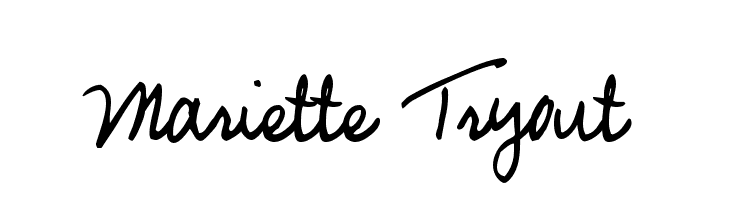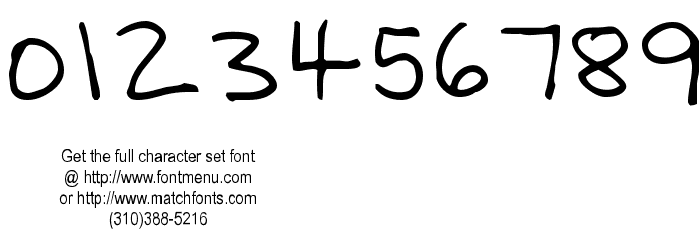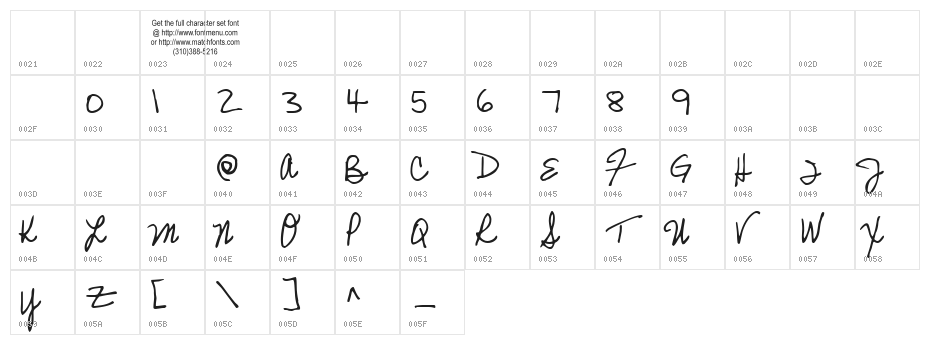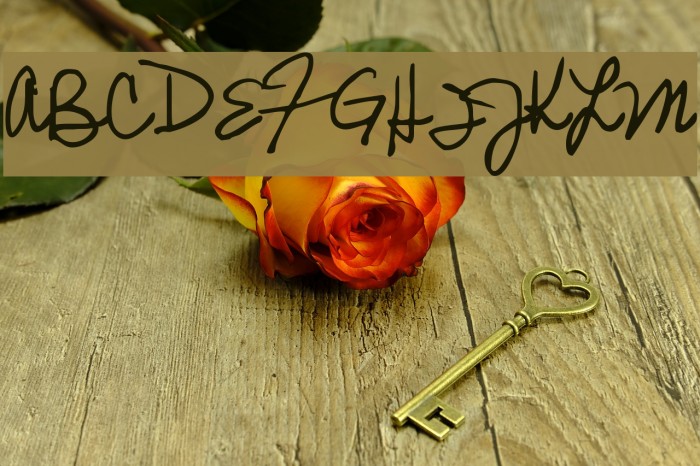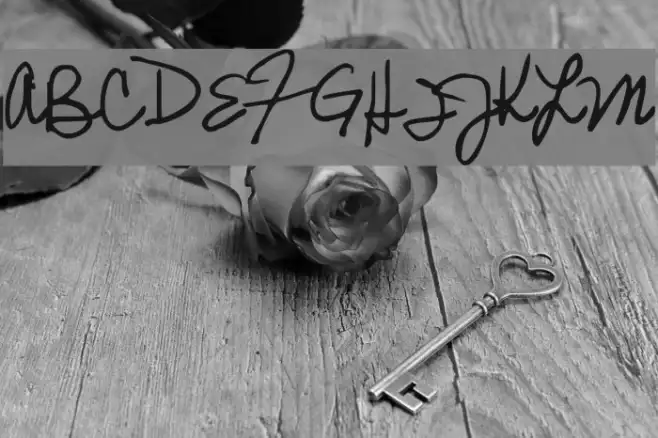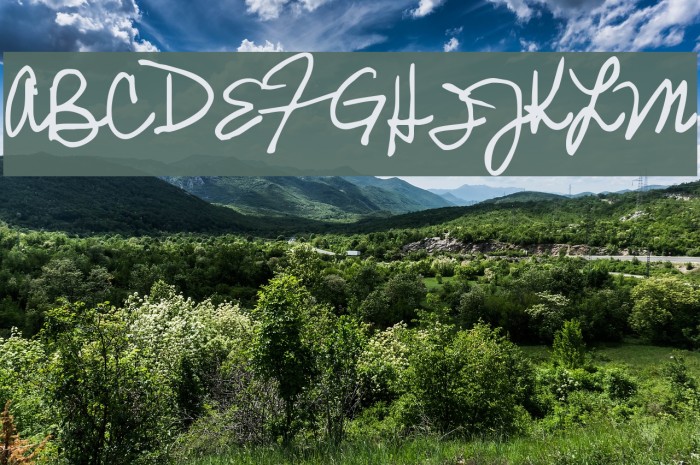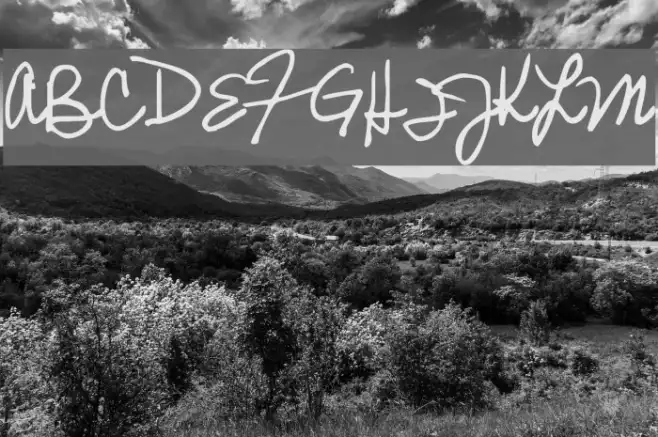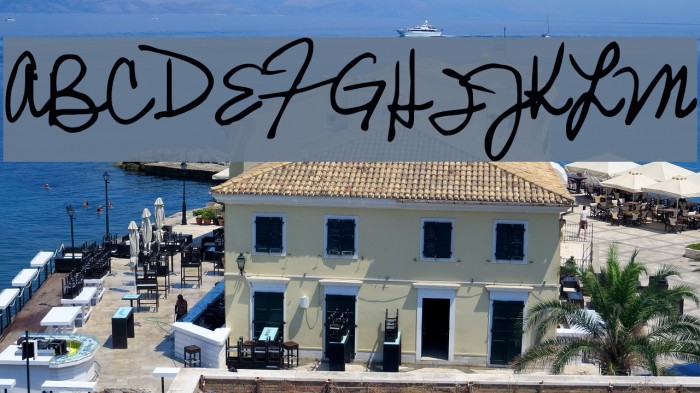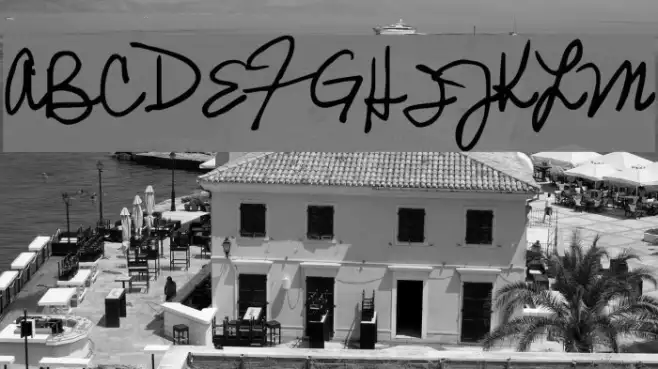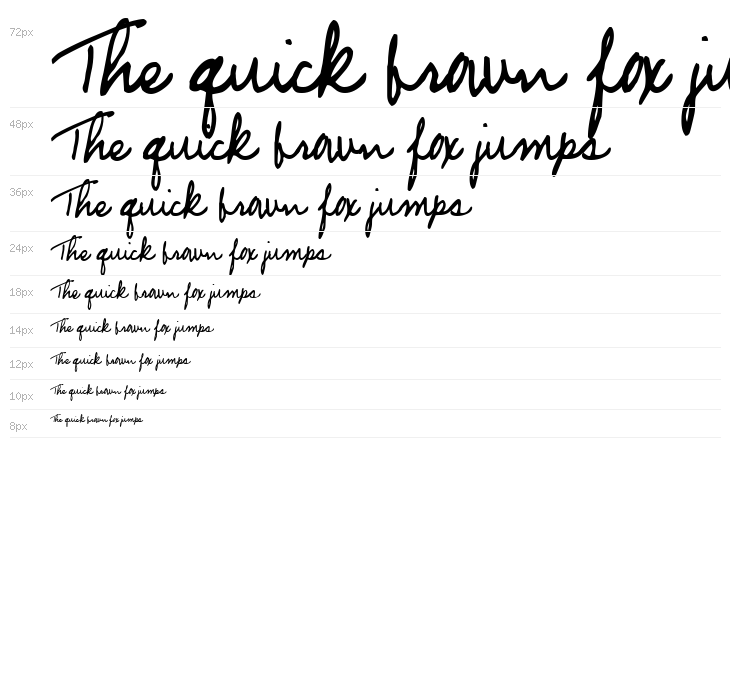
Mariette Tryout Font
Mariette Tryout Description
This font exudes a lively and dynamic handwritten style, characterized by its fluid and cursive strokes. The letters are connected in a way that mimics natural handwriting, giving it an authentic and personal touch. The uppercase letters maintain a consistent height, while the lowercase letters feature a playful variation in size and slant, enhancing the font's casual and approachable feel. The numbers are clear and legible, maintaining the same handwritten aesthetic. This font is perfect for projects that require a personal or informal tone, such as invitations, greeting cards, or personal branding.